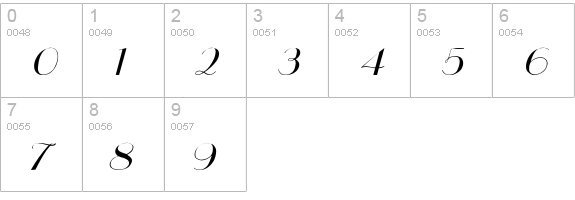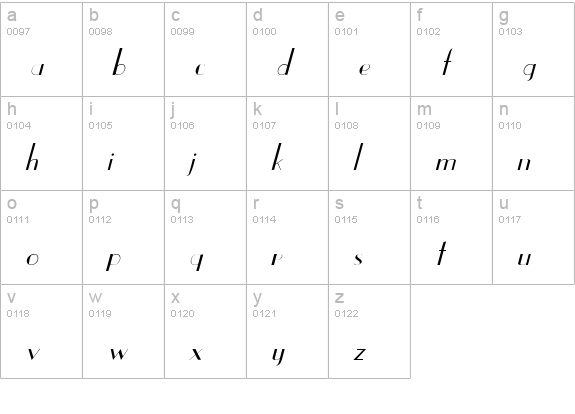
East Side Italic is a distinctive, italic variant in the East typeface family \xE2\x80\x94 well suited to design and typography projects.
East Side Italic is a captivating and stylish font that exudes a sense of elegance and sophistication. Inspired by the vibrant atmosphere of the bustling East Side, this font is perfect for adding a touch of urban flair to your designs. With its slanted and italicized letterforms, East Side Italic effortlessly conveys a sense of movement and dynamism, making it ideal for projects that demand attention and stand out from the crowd. Whether you're designing a logo, creating a poster, or crafting a unique branding identity, this font will undoubtedly make a lasting impression. But what sets East Side Italic apart is not just its aesthetic appeal; it's also the fact that it is available for free. That's right, you can freely download this remarkable font at FontsMarket.com. With just a few clicks, you'll have access to this exquisite typeface that will elevate your designs to new heights. The versatility of East Side Italic allows it to be used in a variety of contexts, from fashion and beauty to technology and entertainment. Its unique combination of sleek curves and sharp angles creates a perfect balance between modernity and sophistication, making it suitable for both digital and print applications. So why settle for ordinary fonts when you can have the extraordinary? East Side Italic is the perfect choice for designers and creatives who want to make a statement and leave a lasting impression. Download it for free at FontsMarket.com and unlock the full potential of your designs.